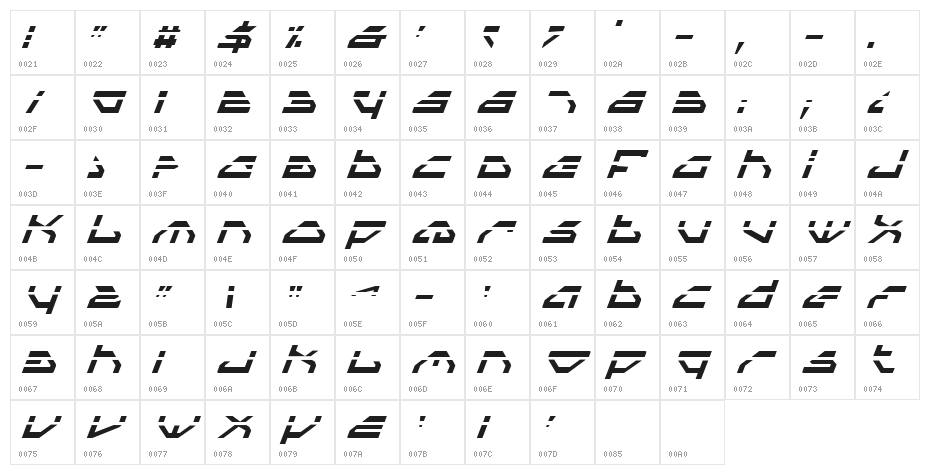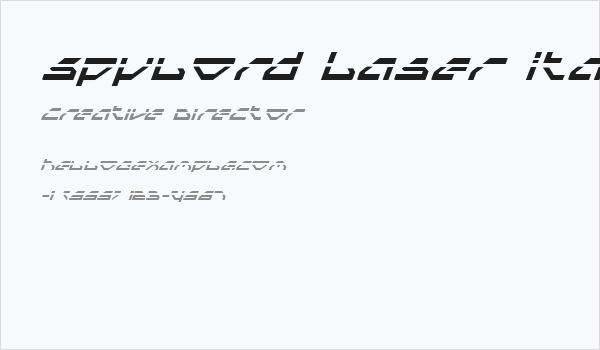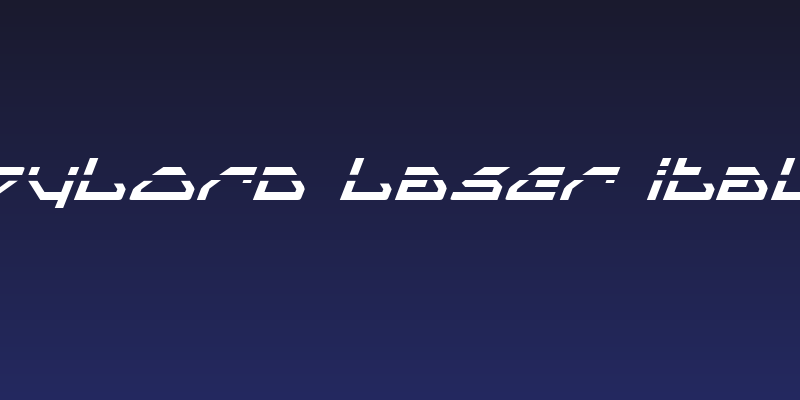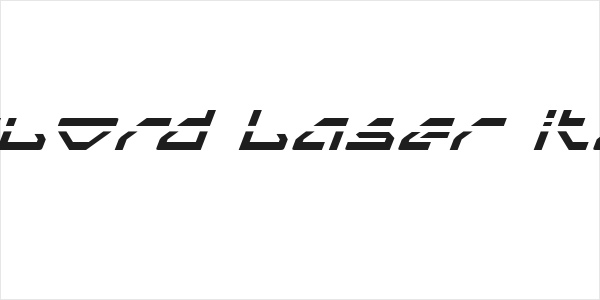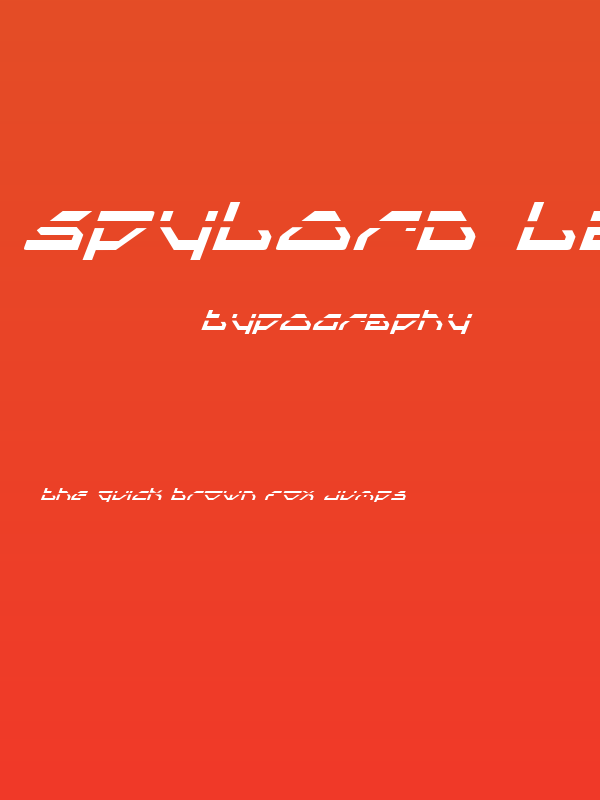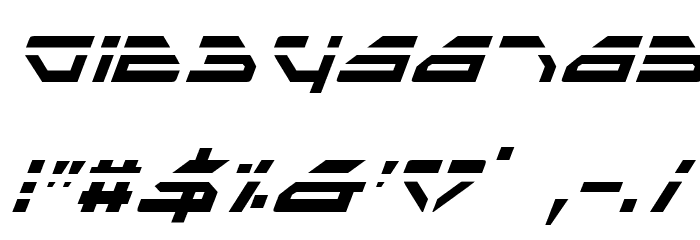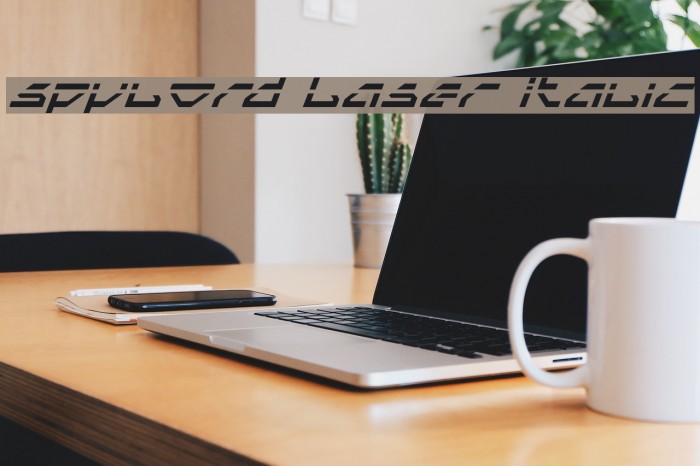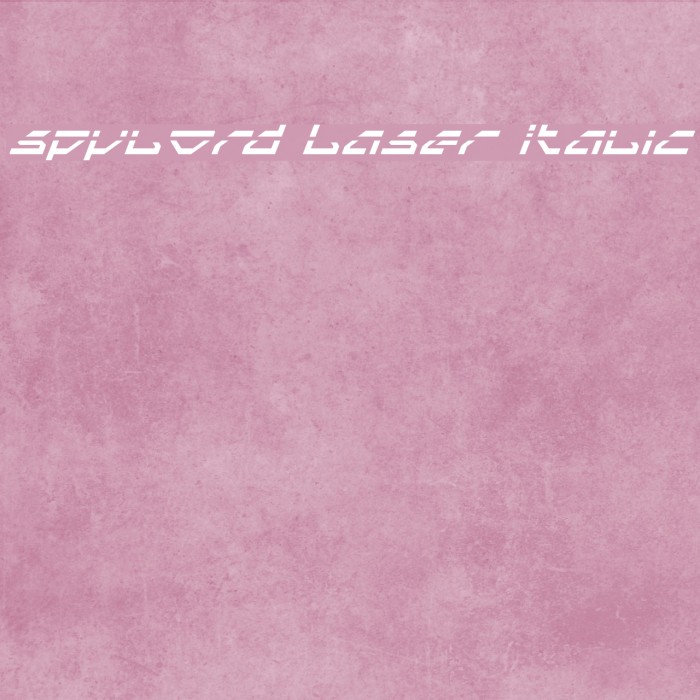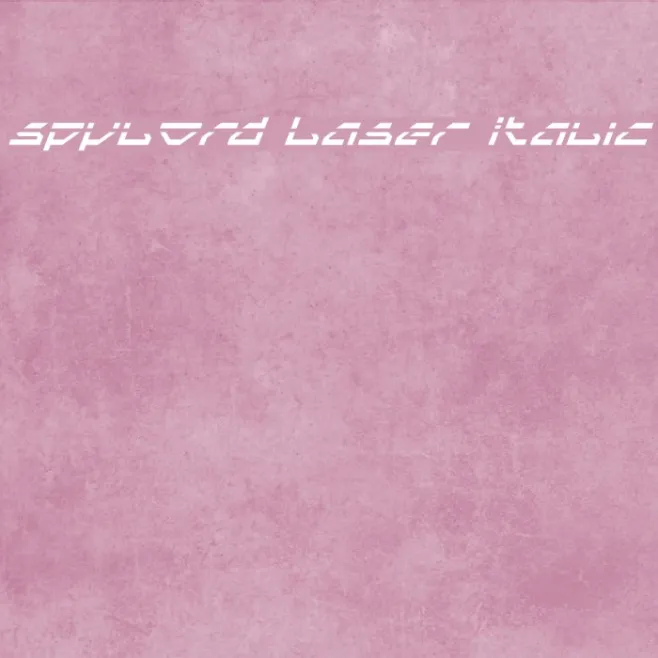
Spylord Laser Italic Font
Spylord Laser Italic Description
This font features a futuristic and angular design, characterized by sharp edges and a slanted, italicized style. The letters are constructed with a geometric precision, giving them a sleek and modern appearance. The uppercase and lowercase letters maintain a consistent style, with the lowercase being slightly more compact. Numbers and special characters follow the same angular theme, ensuring uniformity across all glyphs. The font's unique style makes it stand out, ideal for projects that require a modern and edgy look.
| Proposed Projects | Ideal for sci-fi themed projects, technology branding, video game titles, and futuristic posters. |